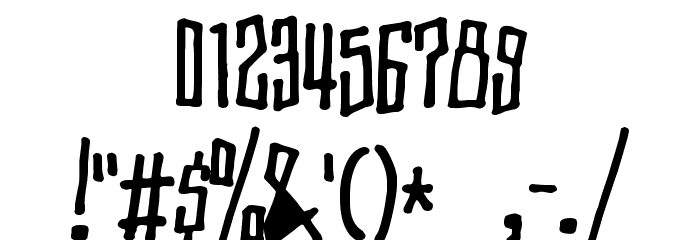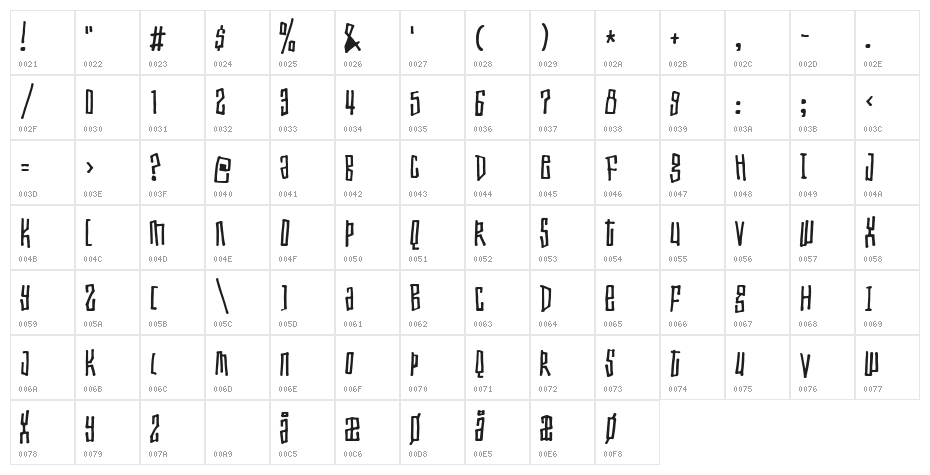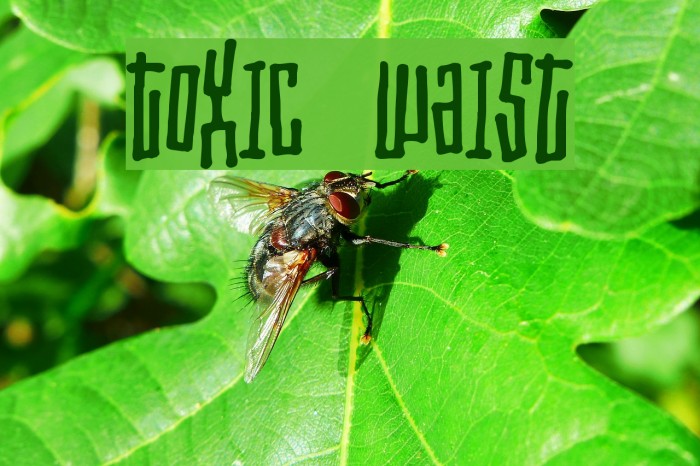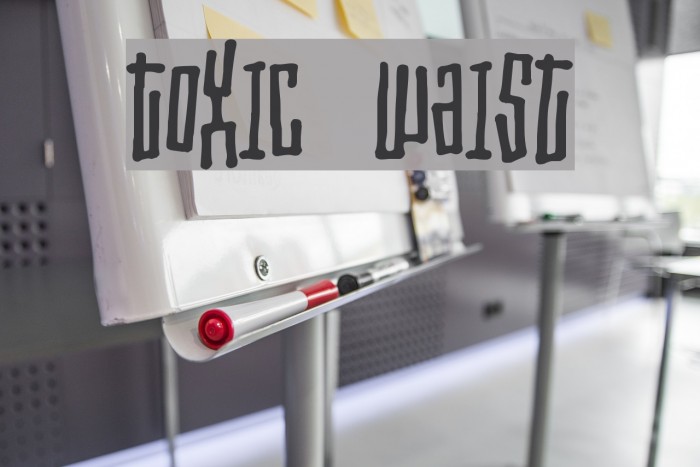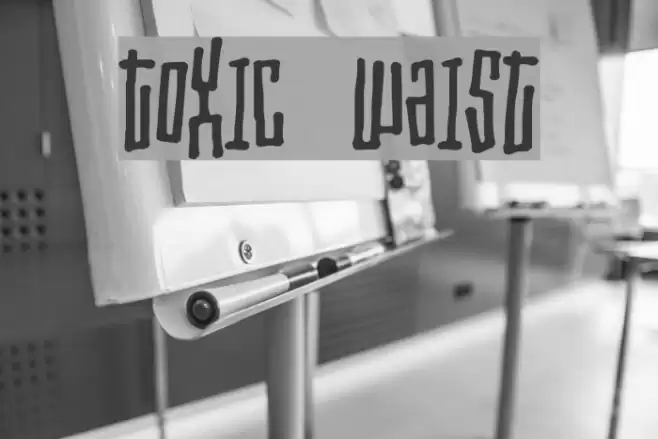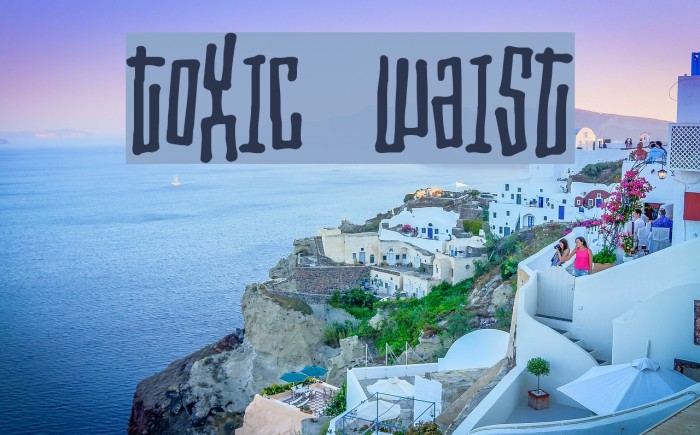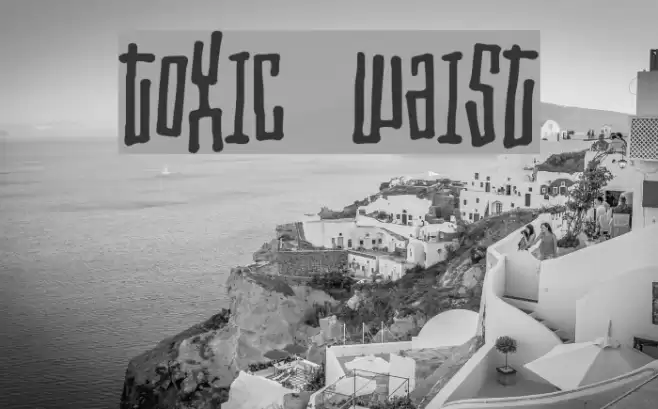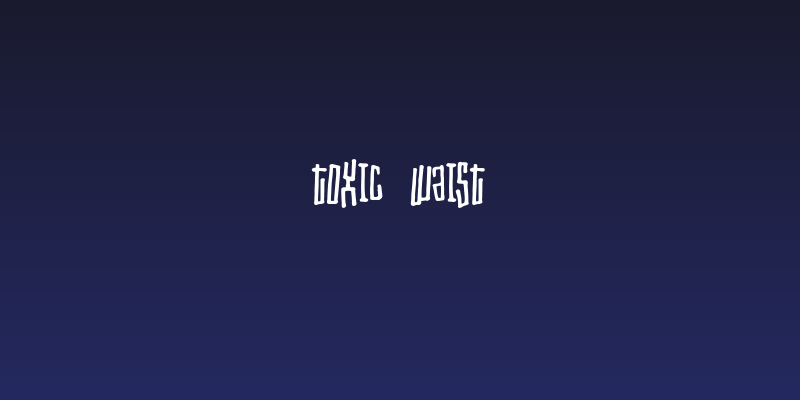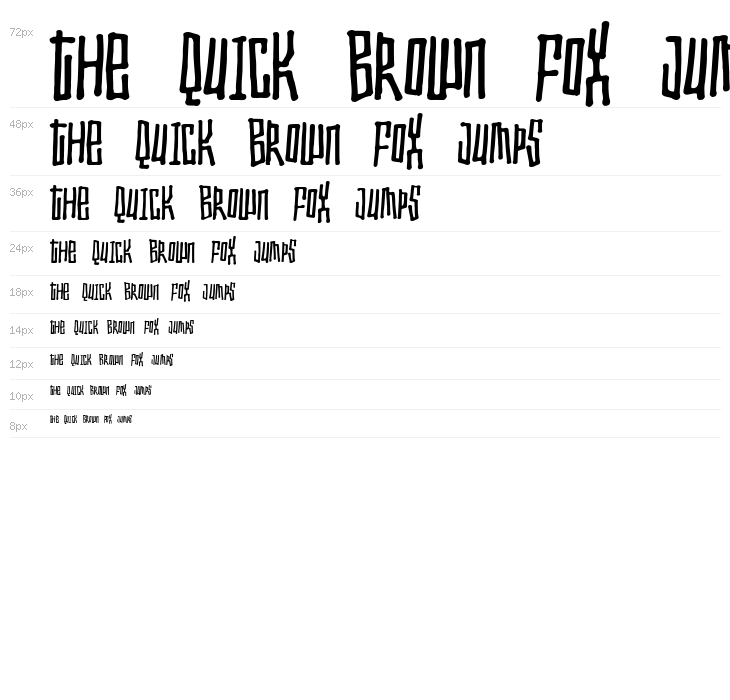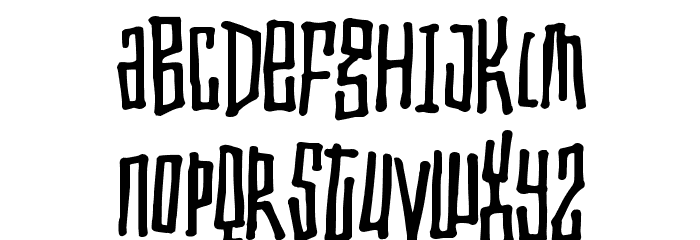
Toxic waist Font
Toxic waist Description
This font features a unique, edgy style with elongated and slightly distorted letterforms that give it a rebellious and unconventional appearance. The uppercase and lowercase letters share a consistent height, creating a uniform look across the alphabet. The characters have a hand-drawn quality, with uneven strokes and a slightly rough texture that adds to its raw and dynamic feel. The numbers and special characters maintain this aesthetic, ensuring a cohesive design throughout. This font's distinctive style makes it stand out, ideal for projects that require a bold and artistic touch.
| Overall Style | Modern, Edgy |
| Proposed Projects | Ideal for album covers, streetwear branding, graffiti art, and edgy poster designs. |